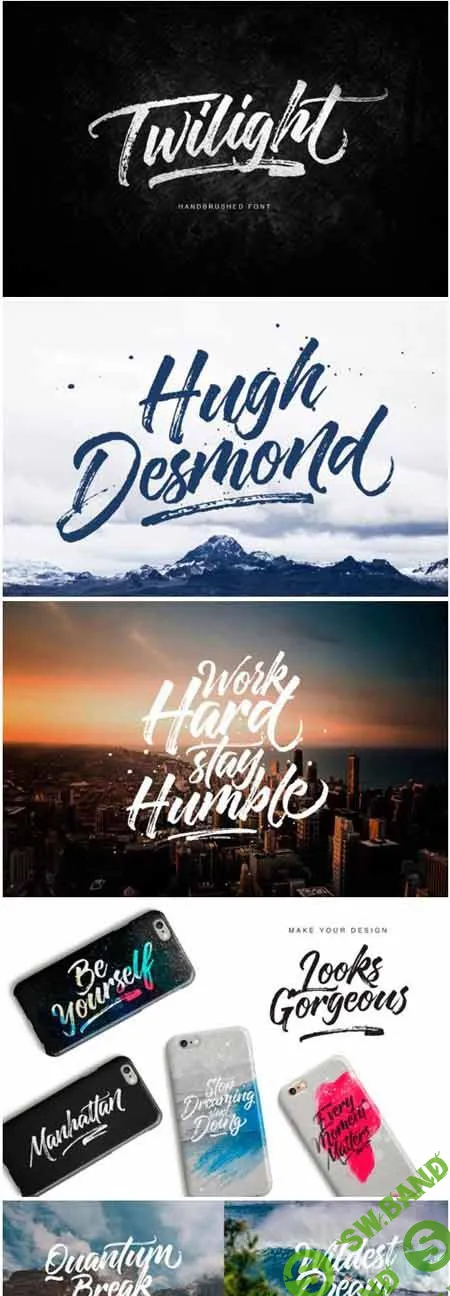
Twilight Font
Twilight is a dry handbrushed font with a distinct charm. Use it to turn any design project into a true standout!
В целом интересный шрифт. Очень хорошо подходит для ярких названий. Не поддерживает кириллицу